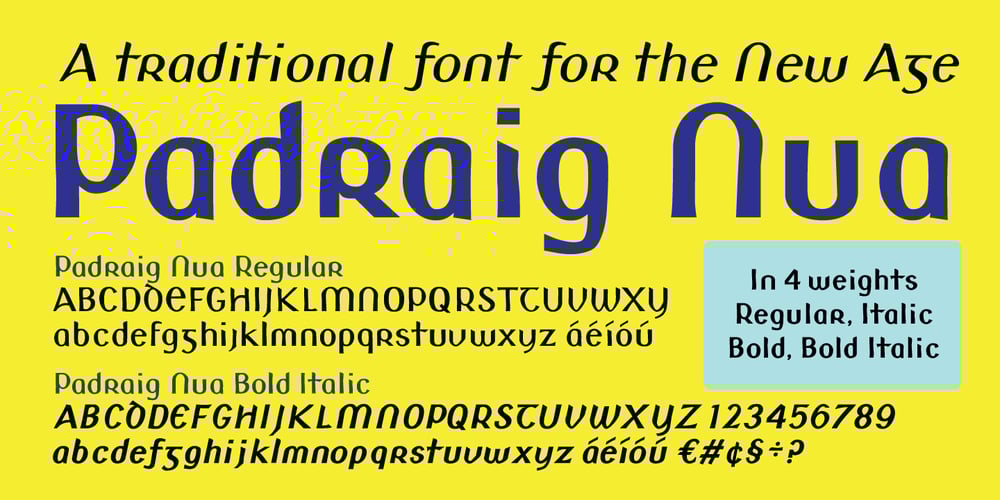
Padraig Nua
Padraig Nua font
Padraig Nua Font Family was designed by Tony Fahy and published by Tony Fahy Font Foundry. Padraig Nua contains 4 styles and family package options. Padraig Nua is a font conceptualized and designed by Tony Fahy. It is a European Celtic font, contemporary to many languages, not just of Europe but of the world.It’s origin is influenced by events in Ireland in the 1960s when it was decided that the uncial letterform should not be used further in Irish schools for the Irish language—Gaelic—and that it should be replaced by the Roman letterform—the Cló Romhanach as it was called afterwards. This happened overnight without any apparent discussion. It probably had a lot to do with Ireland joining the EEC, as the EU was called then. It had a massive effect on the Irish language and culture, in that the distinguishing factor that gave the language it’s identity—the half uncial/uncial fonts that were in use in all school, government and society documentation and merchandise—were lost overnight. No one said how or why. It was just done. To this day, all documentation is bi-lingual in government and Gaelic is taught in schools and universities—and decreed so by the European Union—but the presentation for both languages is the Roman letterform. Throughout the world, there are millions of Irish Americans and Irish Canadians, Irish Europeans, Australian Irish, African Irish and many living in the Middle East and Asia—and this new font—Padraig Nua, will appeal to many of them, visually recalling their roots.No one had thought, in those days, of commissioning a design that might update the Gaelic language to a more contemporary appearance that would keep the cultural nature of it intact with a revised and updated font—at one with Europe, the US and the world.Tony Fahy designed Padraig Nua (New Patrick) to address the problem. It keeps an appearance that lends towards the Gaelic language but steers it in the direction of Roman fonts. Some characters reflect letterforms from the Irish/Gaelic manuscripts and uncial fonts.